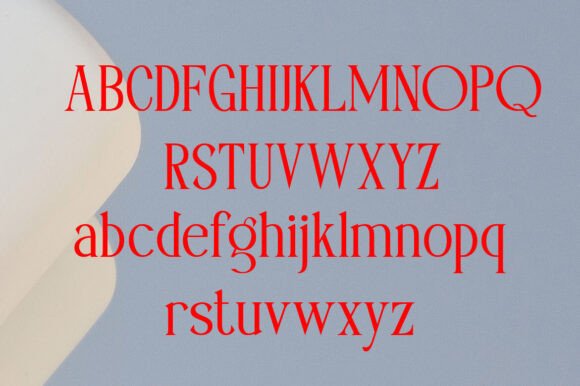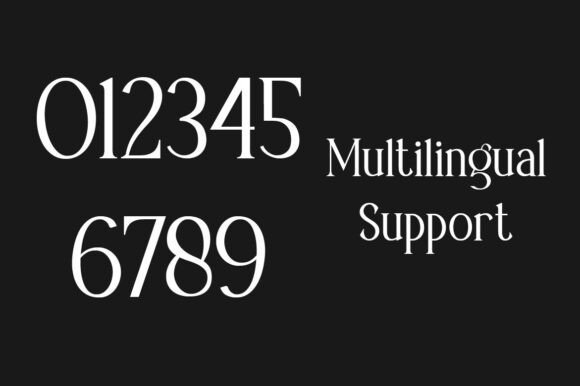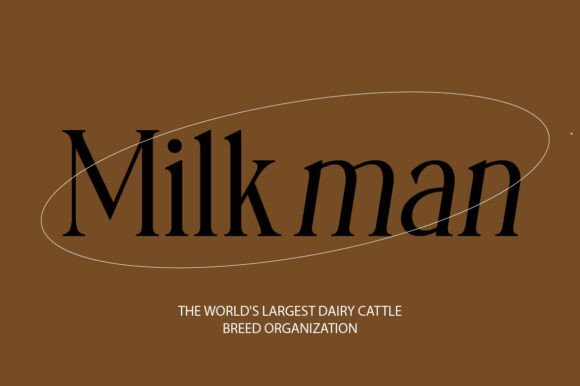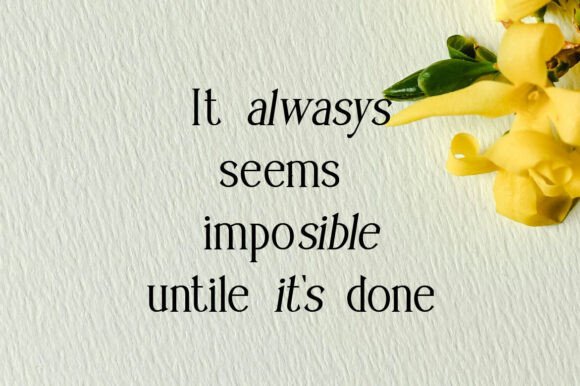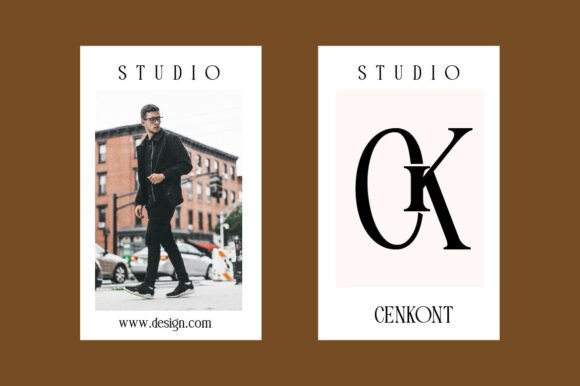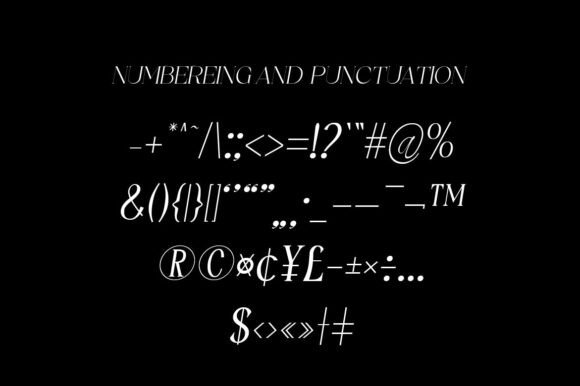
Introducing Dagelan Font: Elevate Your Designs with Elegance and Boldness
In the world of typography, a font can make or break a design. It’s the foundation upon which the entire visual aesthetic is built. For designers and crafters looking to add a touch of sophistication and versatility to their projects, Dagelan Font is an exceptional choice. This elegant and bold serif font is designed to captivate audiences and transform your creations into stunning works of art.
The Essence of Dagelan Font
Dagelan Font stands out with its incredibly versatile style, making it perfect for a wide range of applications. Whether you’re working on wedding invitations, stationery art, social media posts, or any other design project, Dagelan brings an unmatched level of elegance and boldness. Its serif design adds a classic touch, while its boldness ensures your message is conveyed with confidence and style.
Unleash Your Creativity with Dagelan
One of the key benefits of Dagelan Font is its ability to adapt to various design needs. Here are a few ways you can use Dagelan to elevate your designs:
- Wedding Invitations: Create gorgeous and memorable wedding invitations that set the tone for the big day. Dagelan’s elegant and bold style ensures your invitations are both sophisticated and eye-catching.
- Stationery Art: Transform your stationery into beautiful pieces of art. From letterheads to greeting cards, Dagelan adds a touch of class and professionalism.
- Social Media Posts: Make your social media posts stand out from the crowd. Dagelan’s bold and elegant style is perfect for creating eye-catching content that engages your audience.
- And More: The versatility of Dagelan Font doesn’t stop there. Use it for brochures, posters, packaging, and any other design project where you want to make a statement.
Why Choose Dagelan Font?
With so many fonts available, why should you choose Dagelan? Here are a few compelling reasons:
- Versatility: Dagelan’s design is incredibly versatile, making it suitable for a wide range of projects and design styles.
- Elegance and Boldness: The font combines elegance and boldness in a unique way, allowing you to create designs that are both sophisticated and attention-grabbing.
- Easy to Read: Despite its boldness, Dagelan remains easy to read, ensuring your message is communicated clearly and effectively.
- High-Quality: Dagelan Font is a high-quality font designed to meet the needs of professional designers and crafters.
Tips for Using Dagelan Font
To get the most out of Dagelan Font, consider the following tips:
- Pair with Complementary Fonts: While Dagelan is stunning on its own, pairing it with complementary fonts can add depth and interest to your designs.
- Experiment with Colors: Don’t be afraid to experiment with different colors. Dagelan looks great in bold colors, metallic finishes, and even subtle gradients.
- Play with Sizes: Dagelan’s versatility means it can be used at various sizes. Experiment with different sizes to create visual hierarchy and emphasis in your designs.
Dagelan Font is a game-changer for designers and crafters looking to elevate their designs with elegance and boldness. Its versatility, combined with its classic serif design, makes it an excellent choice for a wide range of projects. Whether you’re creating wedding invitations, stationery art, or social media posts, Dagelan Font is sure to make your designs stand out. So why wait? Fall in love with Dagelan’s incredibly versatile style and bring your designs to life in a way that’s both sophisticated and eye-catching.